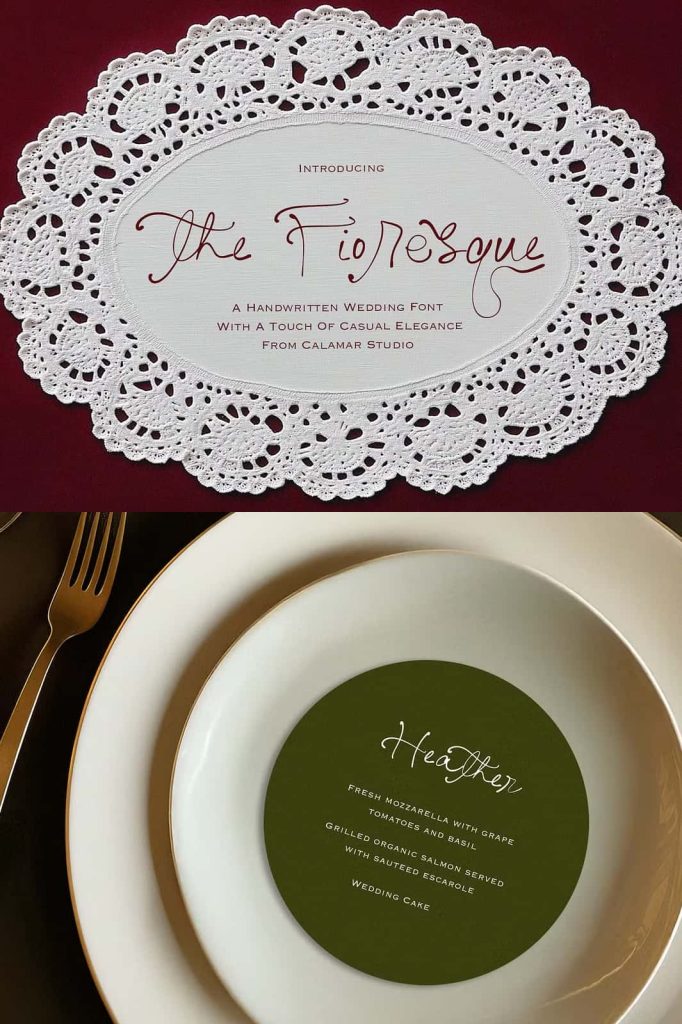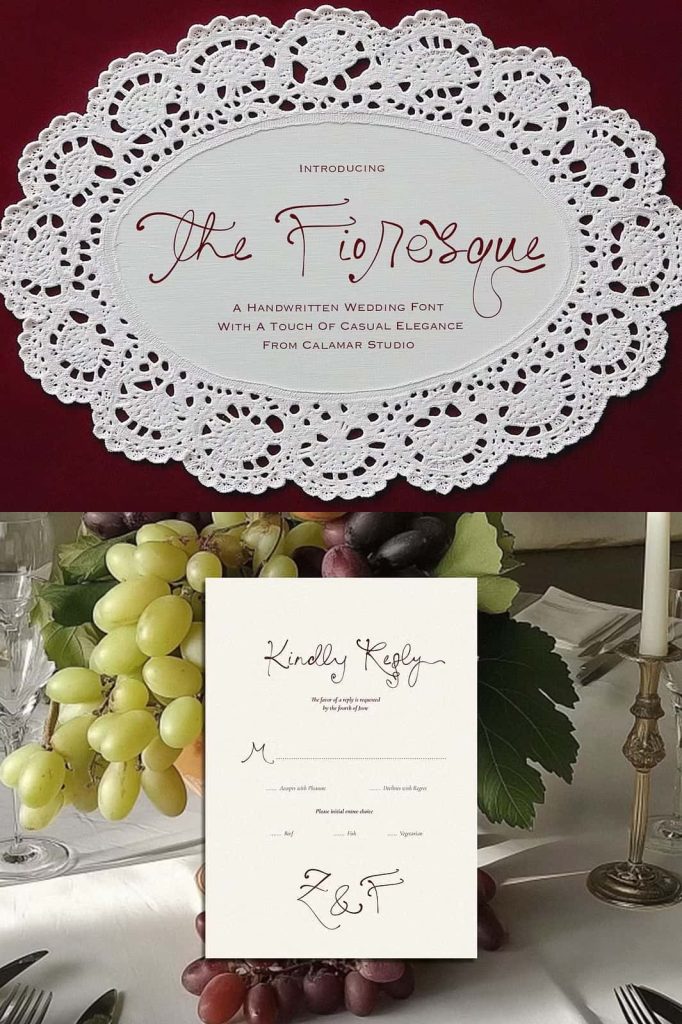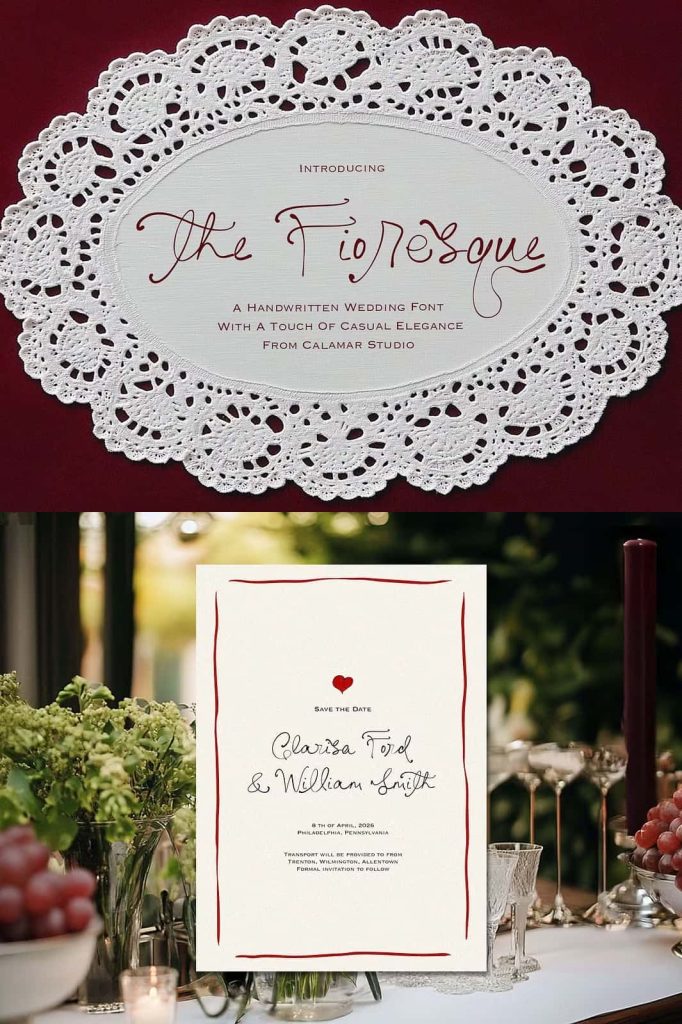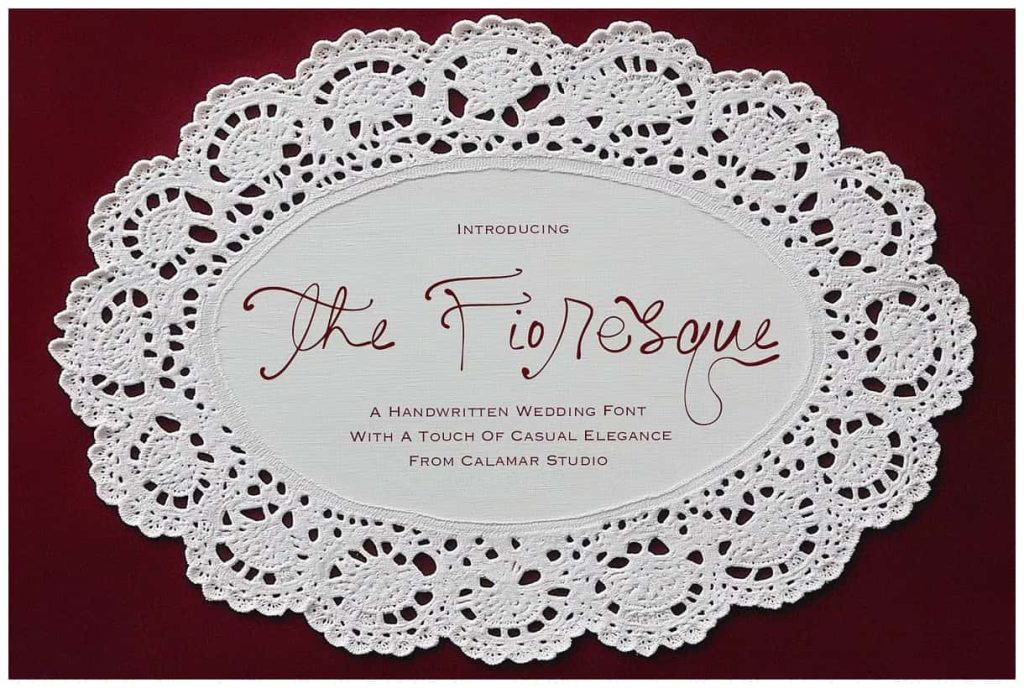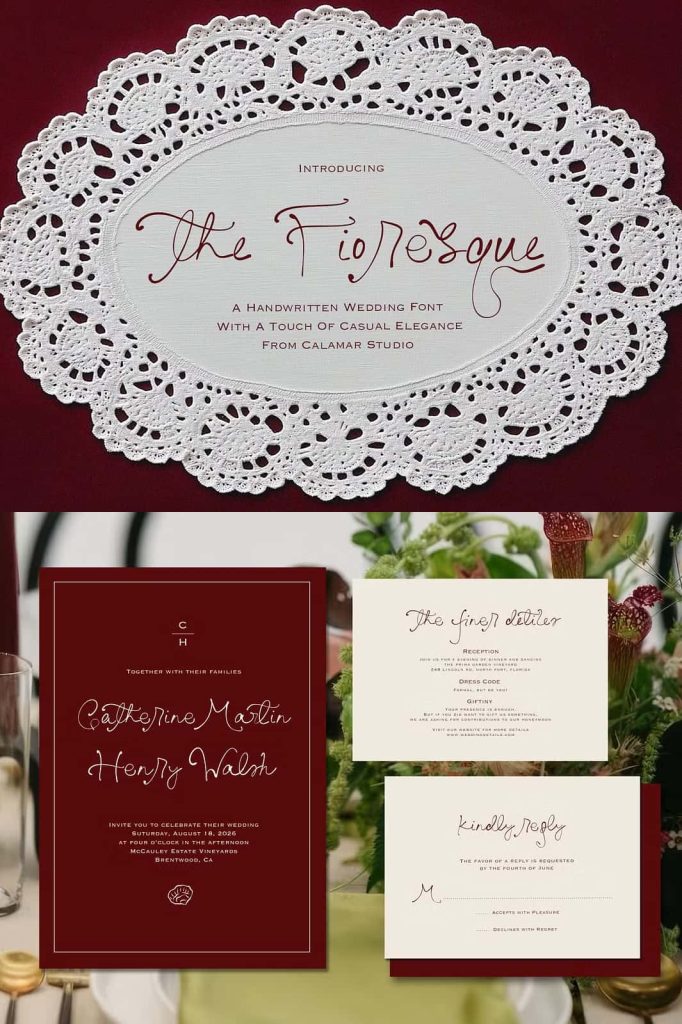
Introducing you “The Fioresque” – a refined handwritten wedding font that blends casual elegance with timeless charm. Perfect for bespoke wedding stationery, save-the-date cards, boutique logos, and premium packaging.